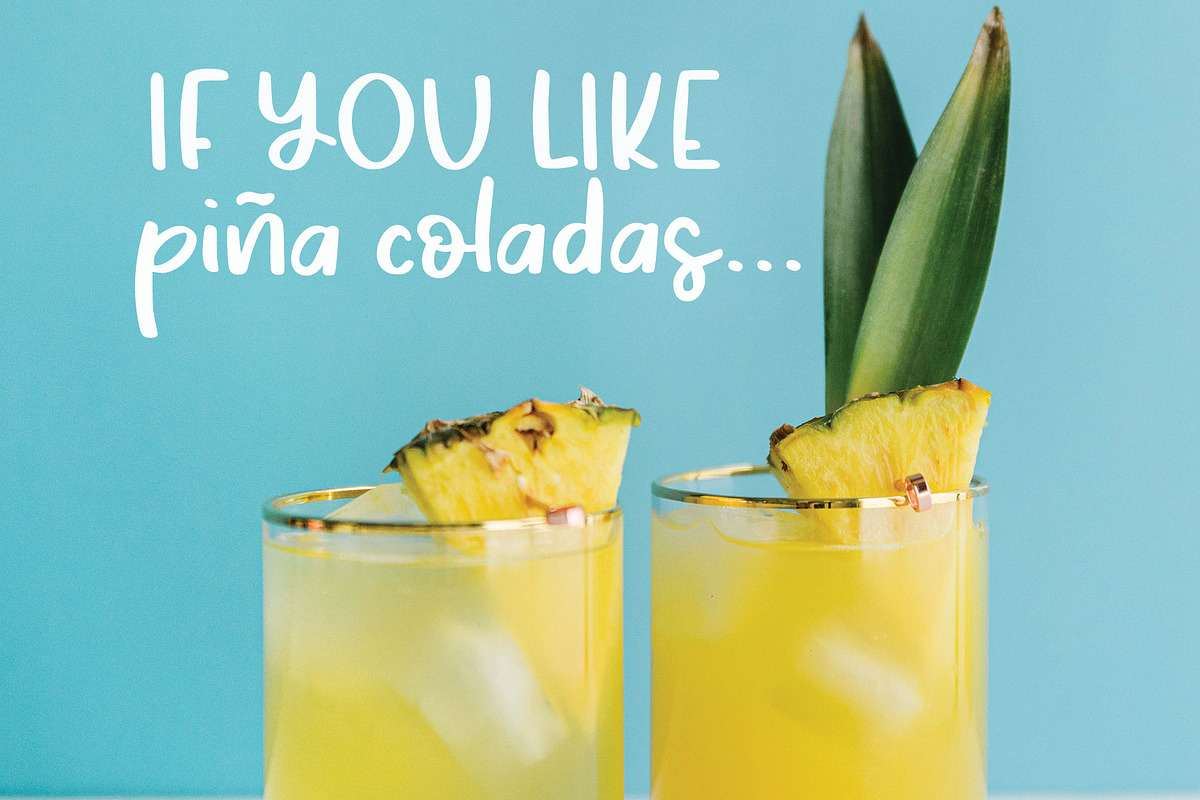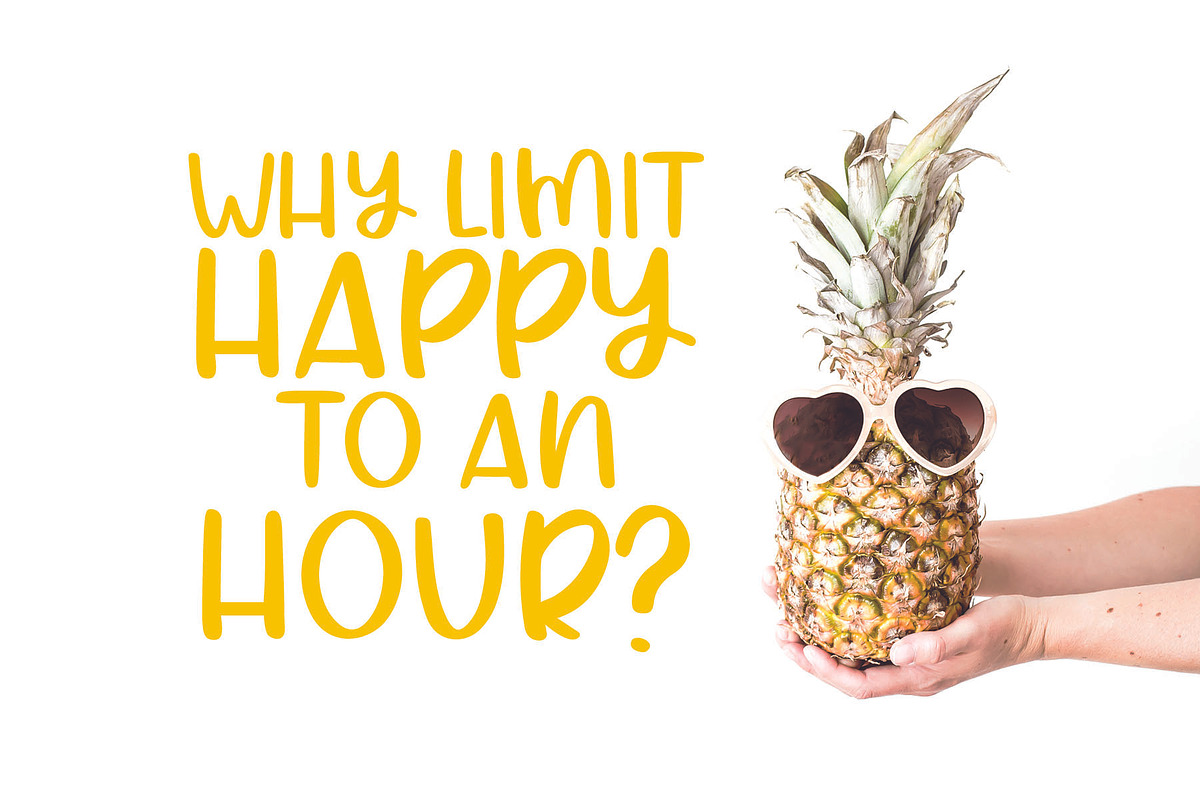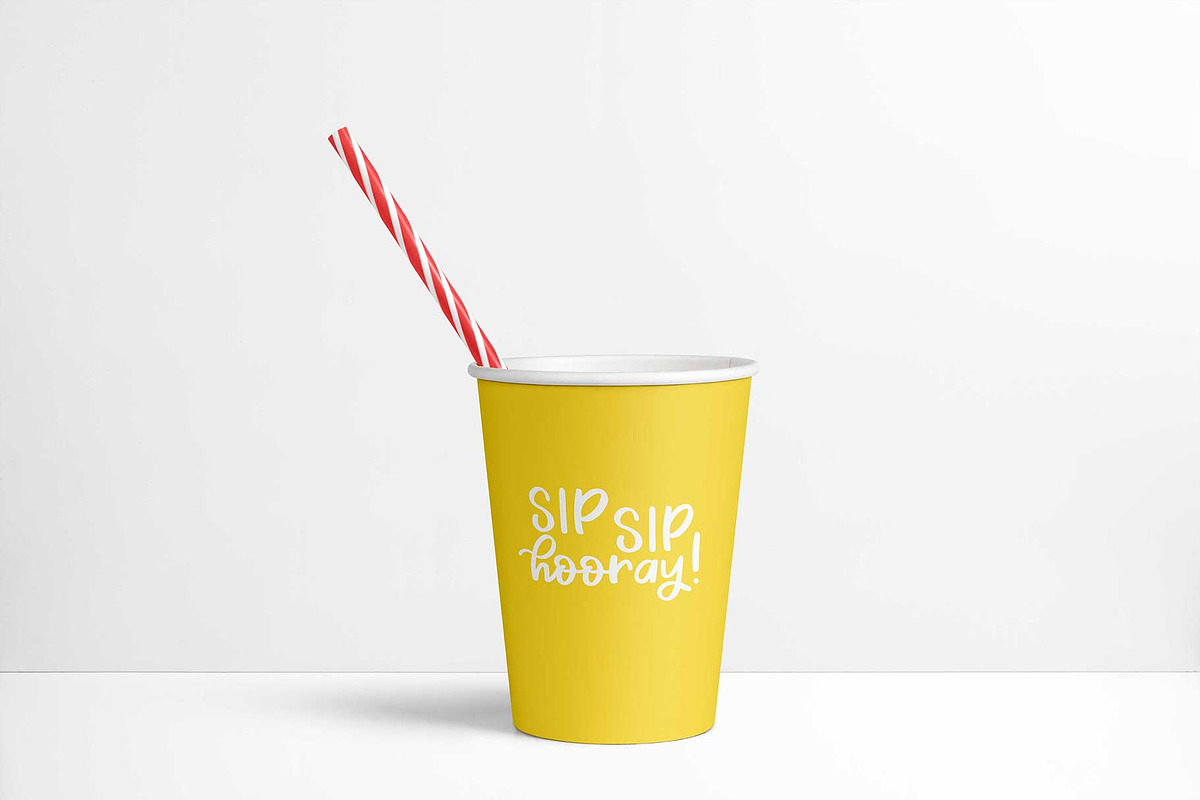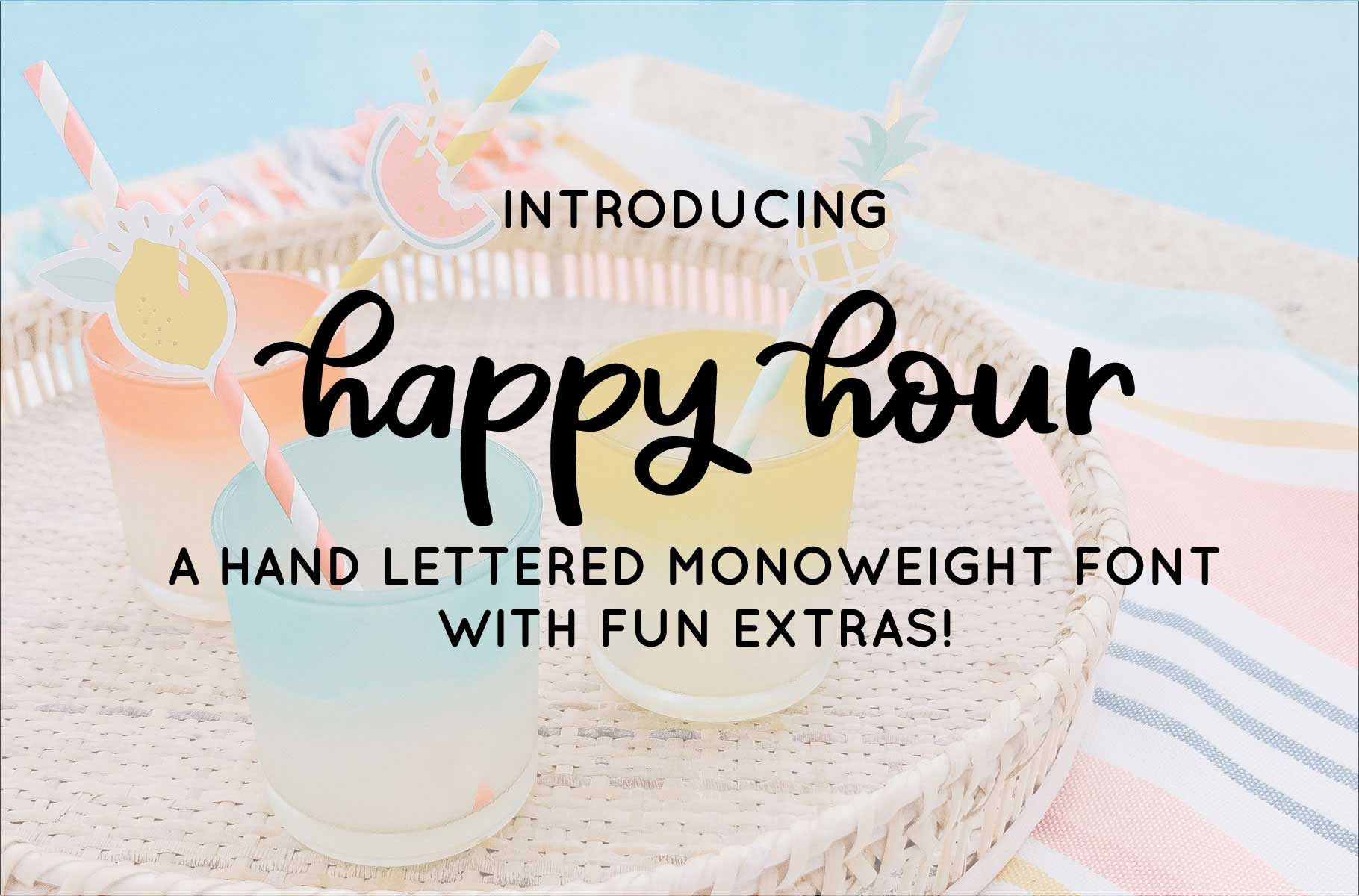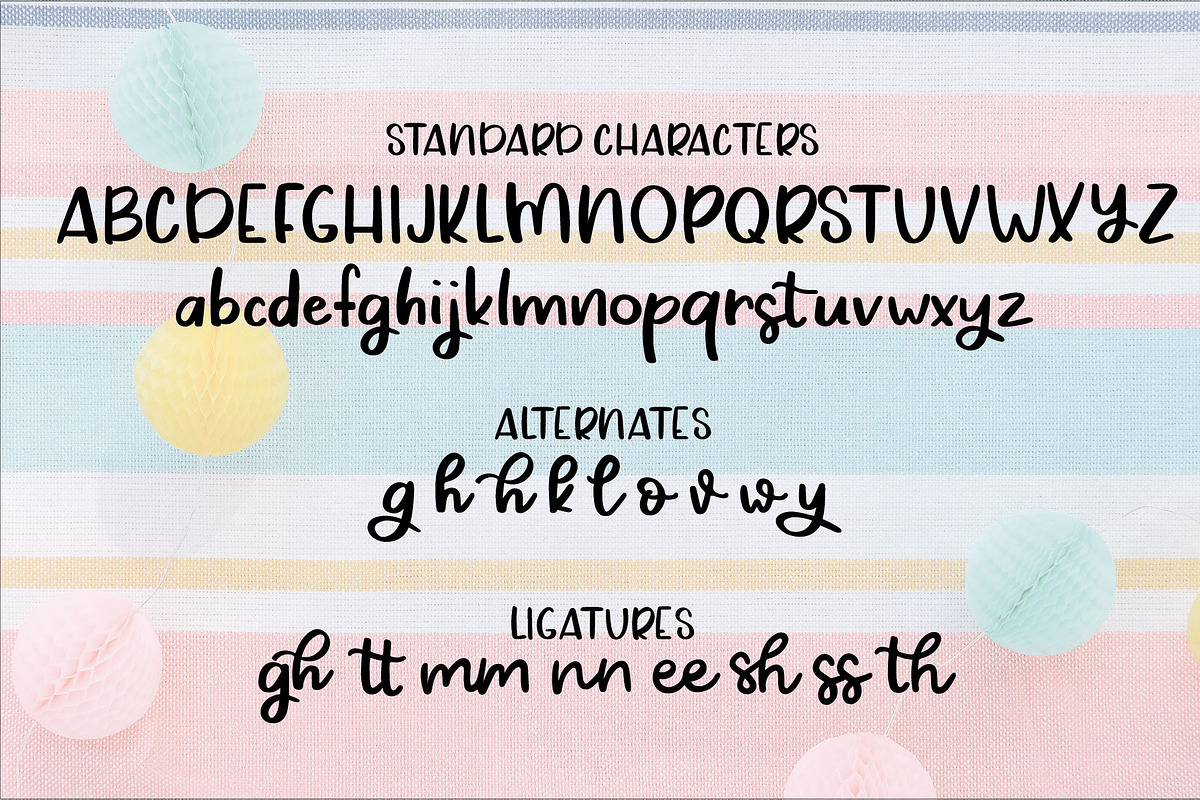
Happy Hour Hand Lettered Font
Happy Hour is a fun hand-lettered font. Its casual style makes it perfect for logos, branding, greeting cards, cut files, blog headers, and more.
This font contains 9 alternate characters and 8 ligatures, allowing you to fully customize your designs. You can see all alternates and ligatures in addition to example text using the alternates and ligatures in the images above. It also contains multilingual support for Western European languages.